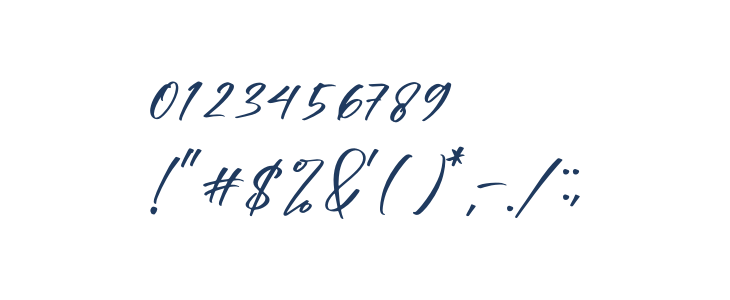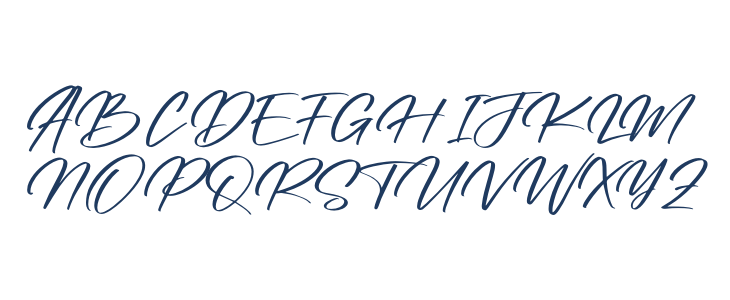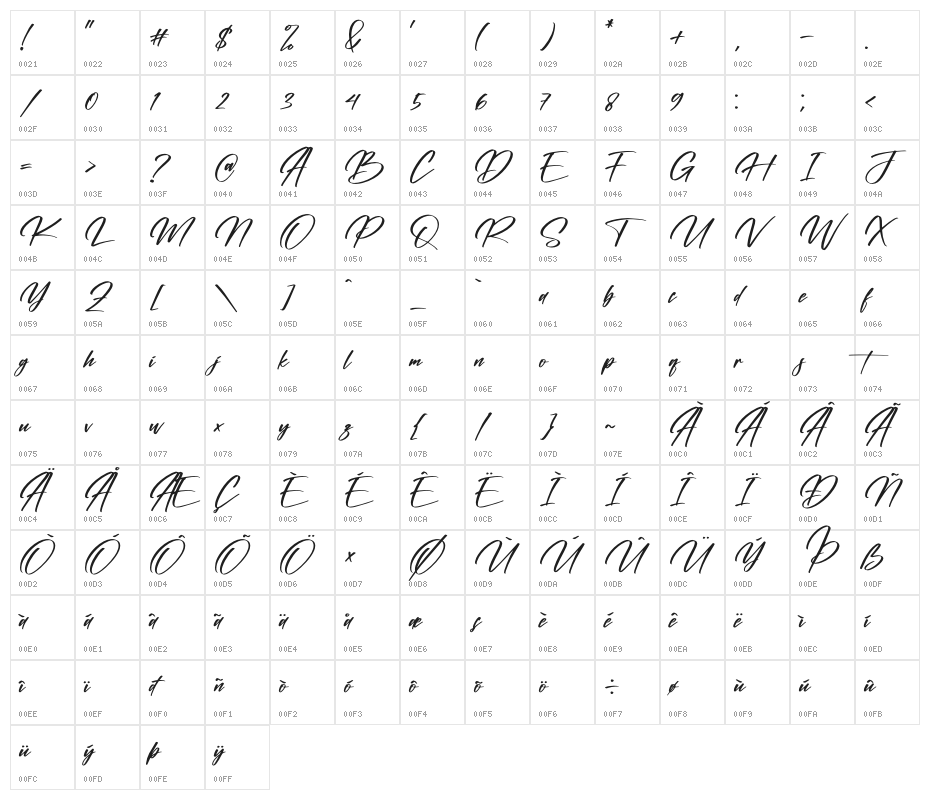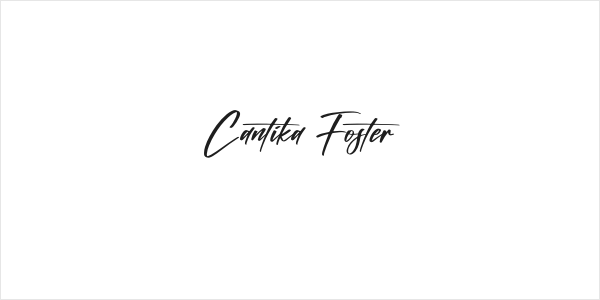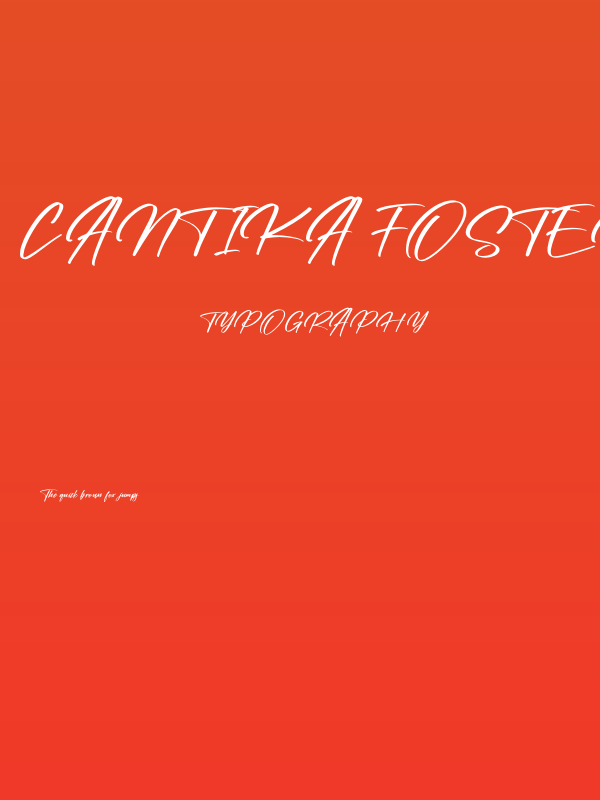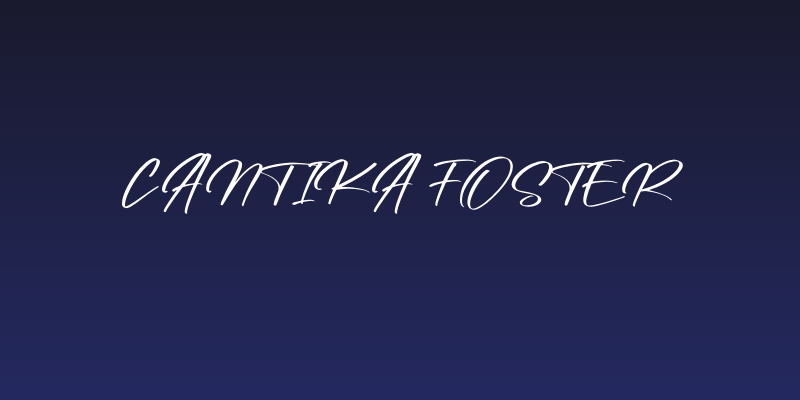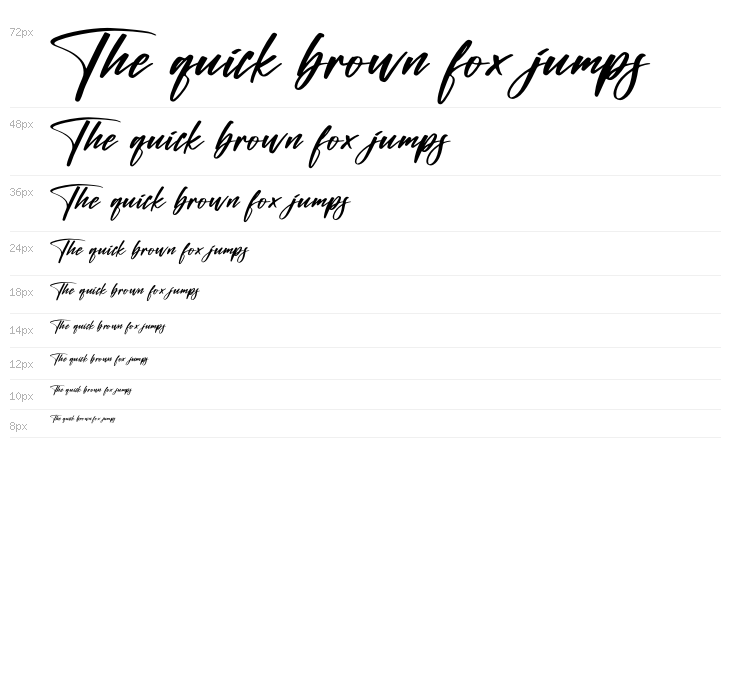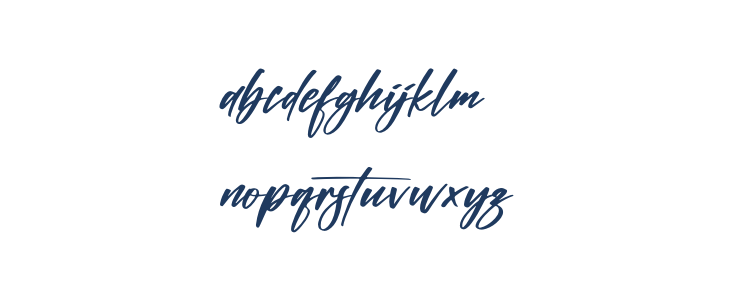
Cantika Foster Font
Cantika Foster Description
A flowing, handwritten script font with elegant, connected letterforms and a natural, brush-pen texture. The uppercase and lowercase characters are expressive and dynamic, with varying stroke thickness and a casual yet sophisticated appearance.
| Overall Style | Decorative, Modern, Handwritten |
| Use Case | Logos, Headlines, Invitations, Social media posts |
| Proposed Projects | Wedding invitations, personal branding, social media graphics, greeting cards, quotes, packaging. |